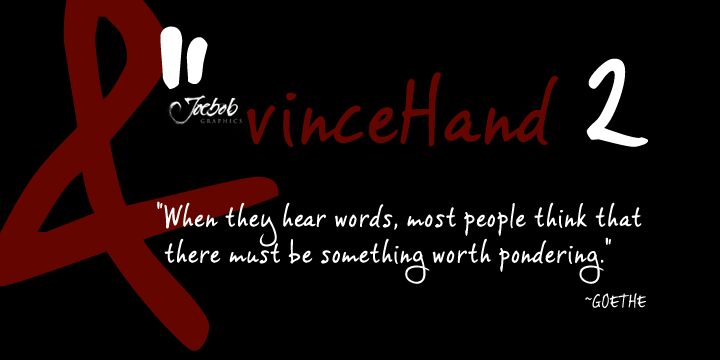
Vince Hand II by JOEBOB Graphics is a free brush script with the quick, personal look of marker lettering. Its strokes change width naturally and end in blunt, rounded tips. The forms lean and bounce slightly.
It is best suited to informal branding, especially logos for cafes or independent makers. The movement also fits event invitations and music posters, where a handwritten note feels more direct than formal lettering. Its signature-like line suits personal messages, acoustic music, and handmade goods.
The font is based on the handwriting of Vincent, a painter.